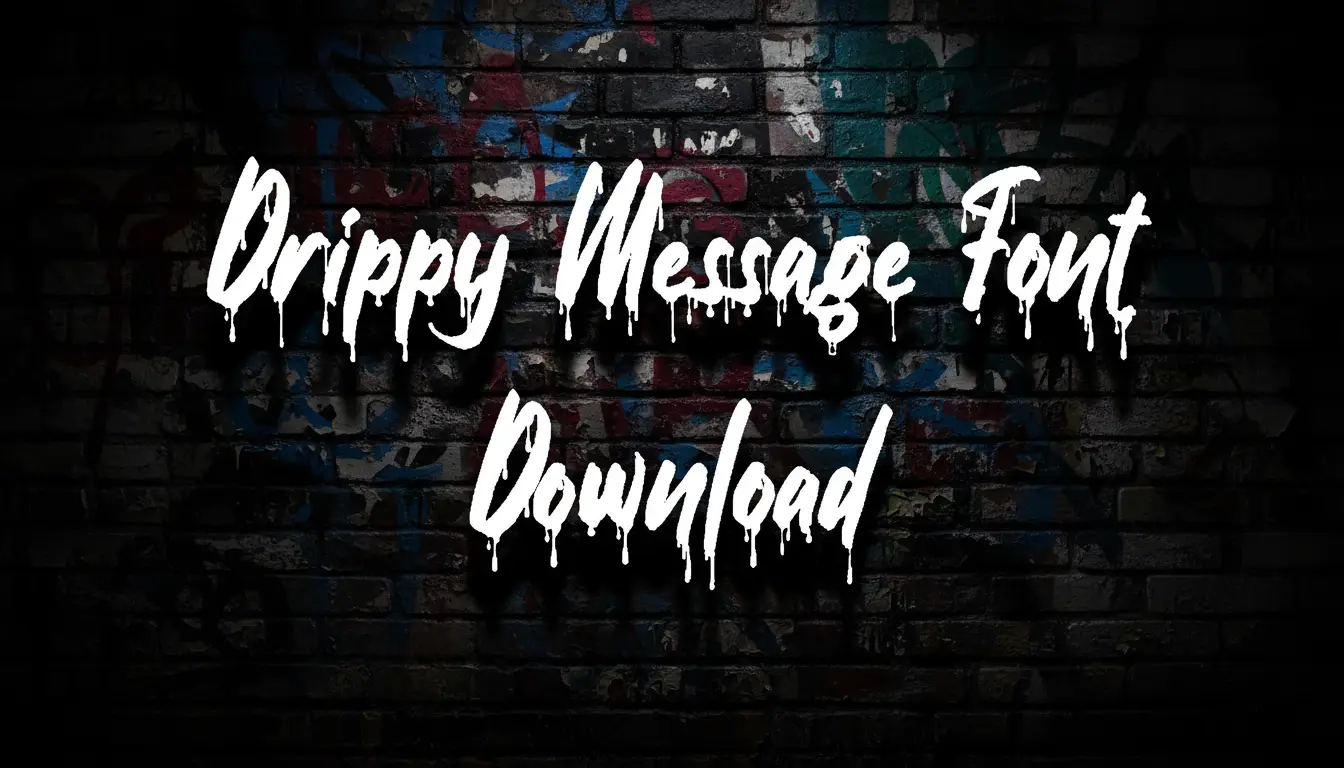
Drippy Message Font
Drippy Message
Drippy Message is a horror font designed by Colllab Studio. It looks like it belongs on a horror film poster, with shapes meant to make people a little uneasy. You can download it for free and test it with your own words in the preview above.
- Category: Horror font
What You Can Type With Drippy Message
Drippy Message covers the full alphabet in upper and lowercase, plus all ten numbers, so you can set names, dates and prices without switching fonts. Everyday marks like &, !, ? and @ are there too. Thanks to its accented letters, it also works for Spanish, French, Portuguese and Italian, not just English.
Where Drippy Message Works Best
Drippy Message is a natural fit for Halloween flyers, horror movie titles and game covers. Horror fonts hit hardest on dark backgrounds with plenty of empty space around the title.
Does Drippy Message support accented letters?
Yes. Drippy Message includes the accented letters needed for Spanish, French, Portuguese and Italian, so it works for more than just English.
What fonts pair well with Drippy Message?
Use a plain, narrow sans serif for credits or details so the title does all the scaring.